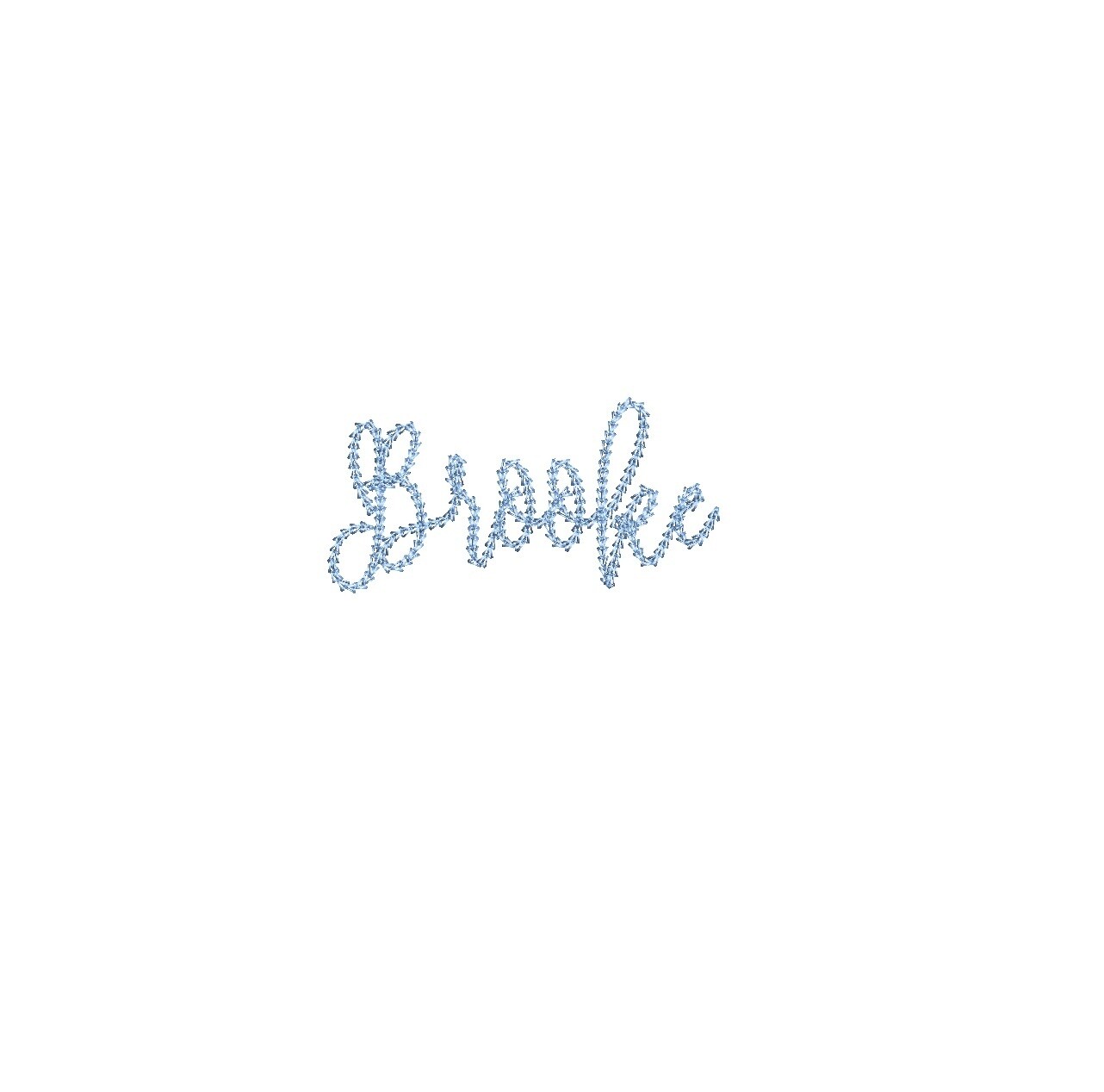
Elevate embroidery with the exquisite Brooke Chain Stitch ESA font, compatible with Wilcom Studio e4.5.6 and Hatch 3 versions and newer. This font adds a touch of sophistication to your designs, crafted with meticulous detail. Its intricate chain stitch artistry enhances depth and allure in every project. Seamlessly integrate for exceptional results that captivate. Brooke transforms fabric into a canvas of innovation with its versatile charm. Elevate your embroidery game with this seamless blend of technology and artistry. Experience the power of Brooke Chain Stitch ESA font to redefine stitching excellence. Upgrade your designs today for enduring impact.